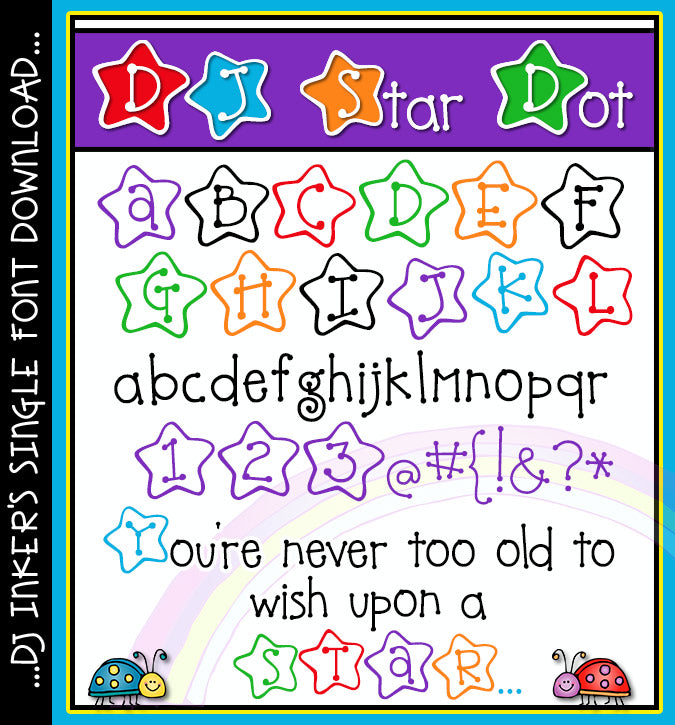
Cute star dot lettering for kids and teachers by DJ Inkers
DJ Star Dot Font Download
Cute star dot lettering for kids and teachers by DJ Inkers
DJ Star Dot Font Download
When you wish upon a star, there's no need to ask for cute lettering... just visit DJ Inkers!  Our fun DJ Star Dot font will be great for colorful headlines, nameplates, fliers, kids rooms, preschool, classroom projects and anything your creative heart desires.